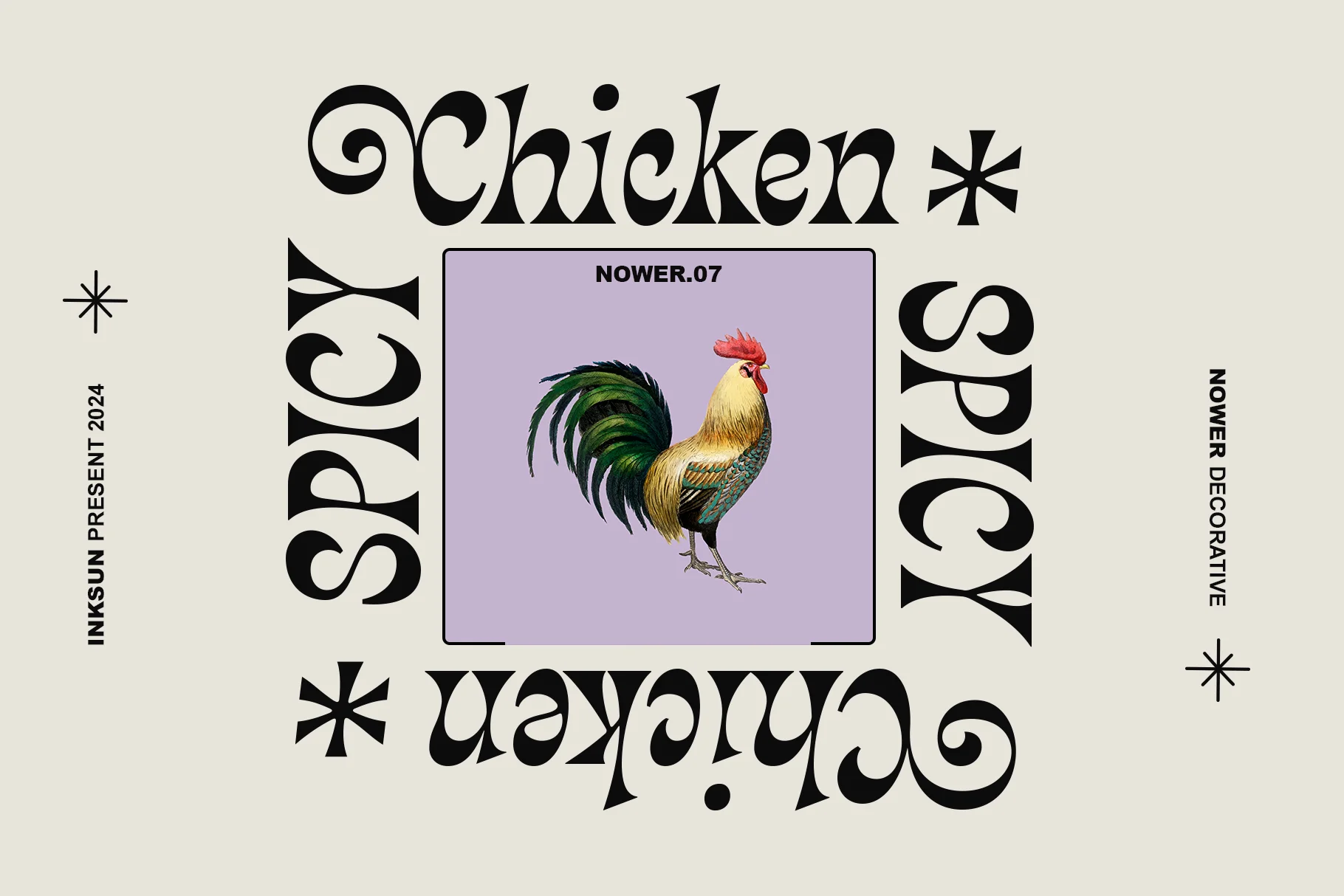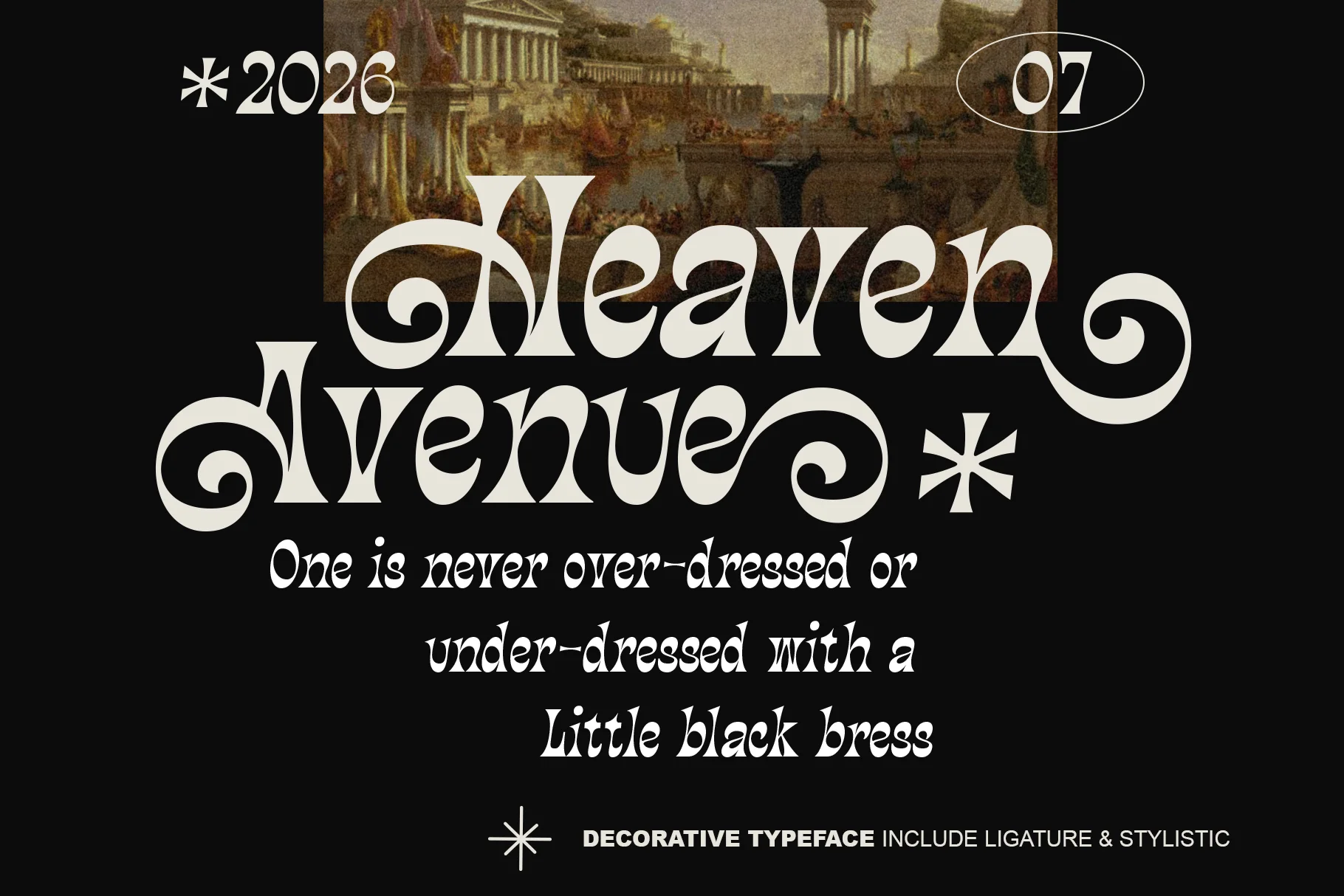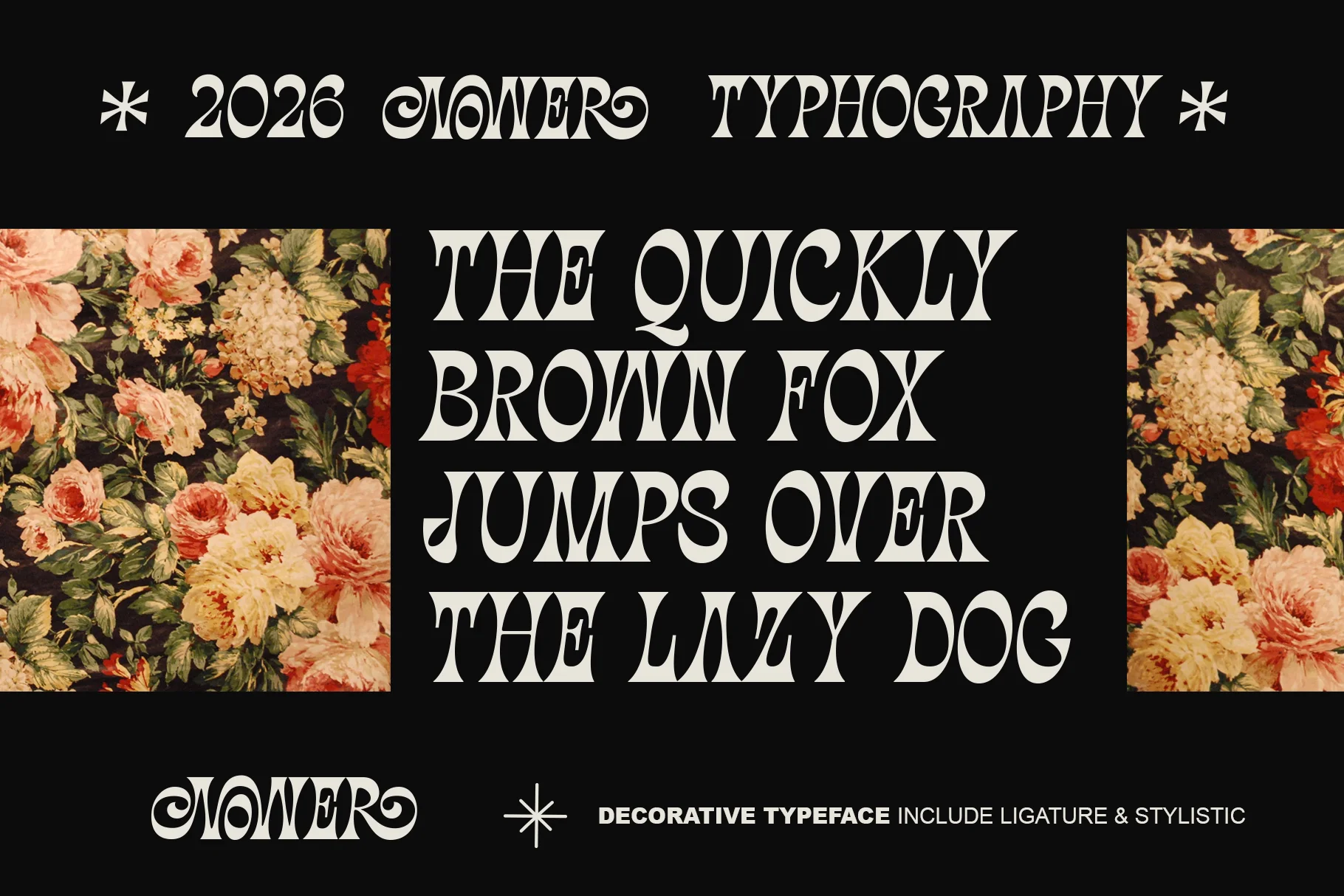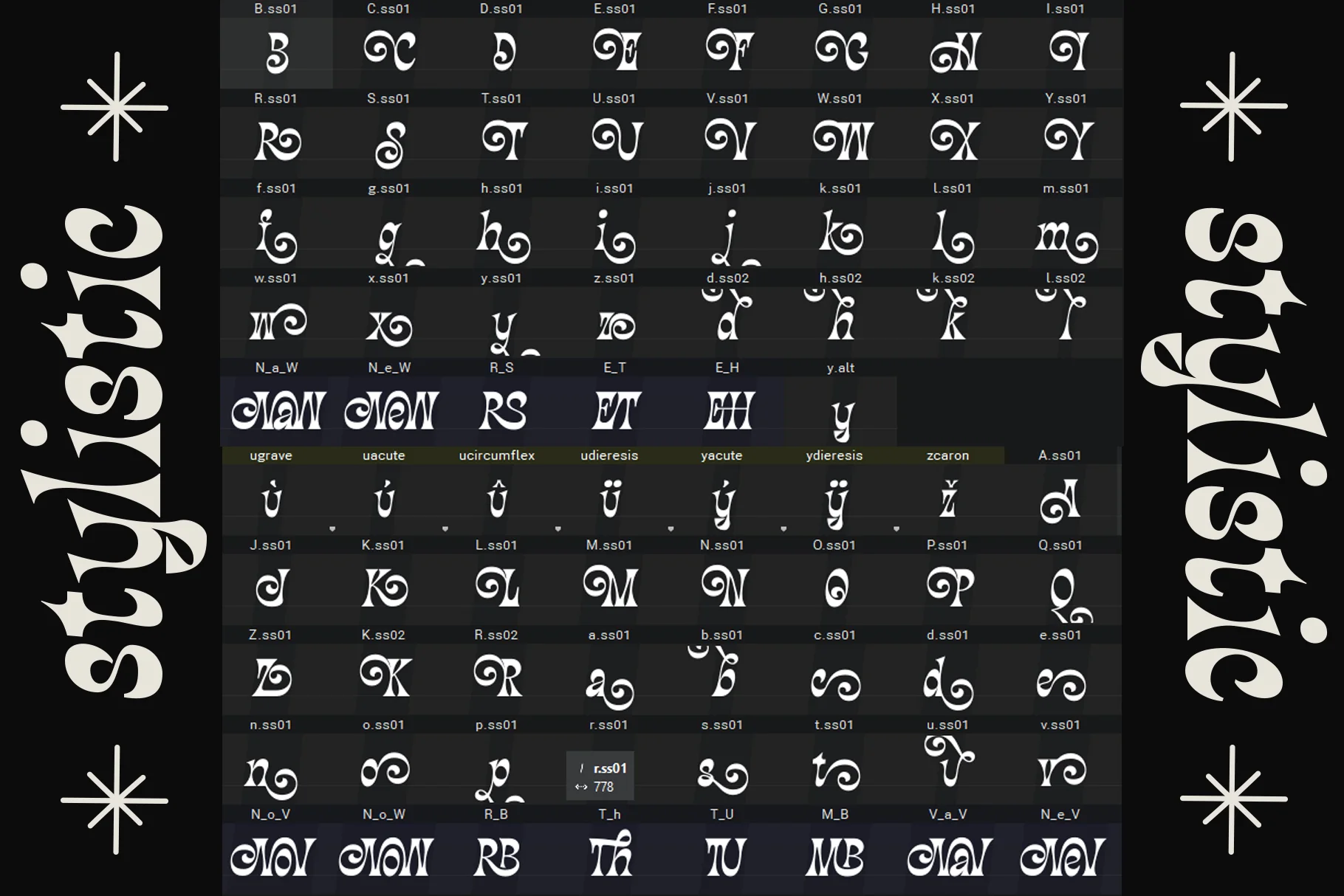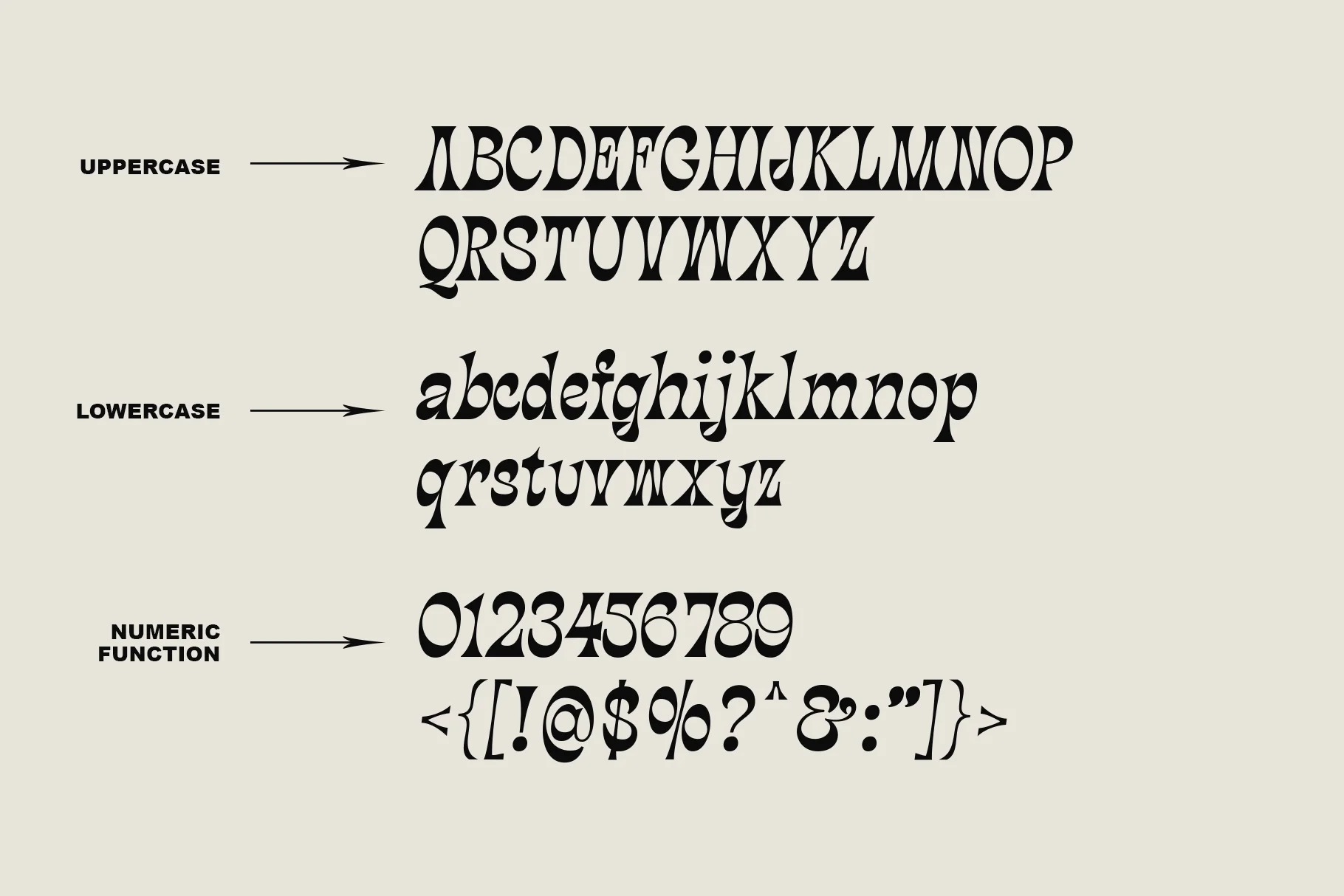
Nower
This decorative display serif font features a strong, expressive, retro-psychedelic style. Its characters feature extreme curves, bold strokes, and flowing organic shapes, creating a unique and instantly recognizable look. Swirls, curls, and ligatures are key features, giving each character a dynamic and artistic feel.
The unconventional letter proportions and bold shape contrasts evoke a vintage 60s-70s feel, yet remain relevant for modern design. This font isn't intended for long texts, but rather as a statement typeface that grabs attention.